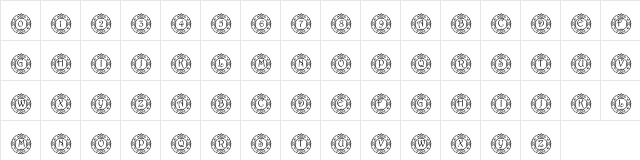
pf_wreath Regular
Design Context for pf_wreath Typeface
pf_wreath is a composed and adaptable typeface that performs quietly and consistently across a wide range of design contexts.